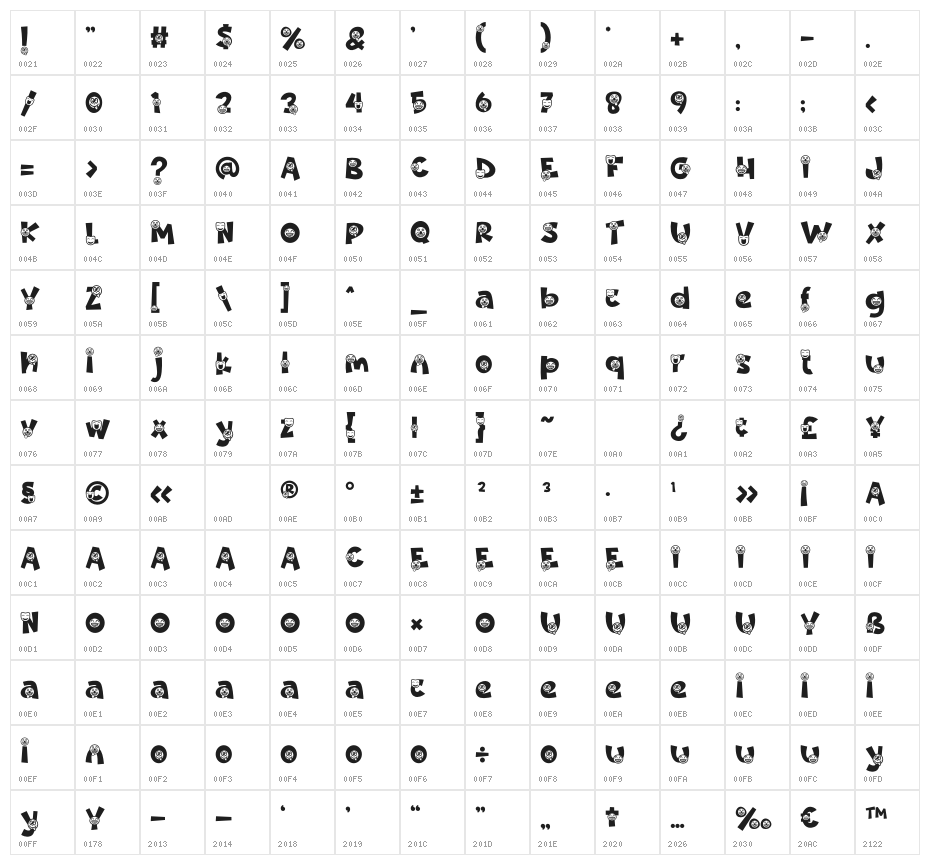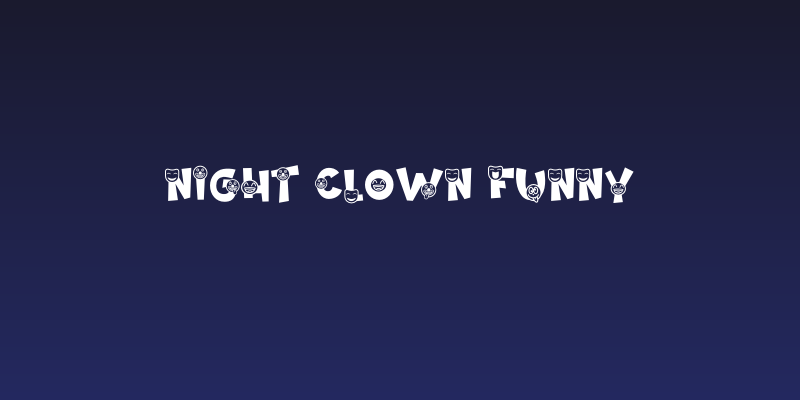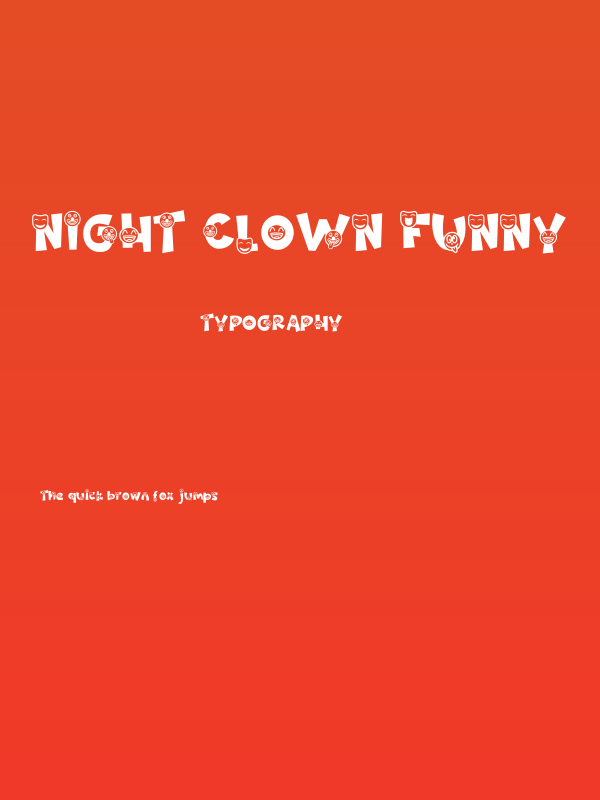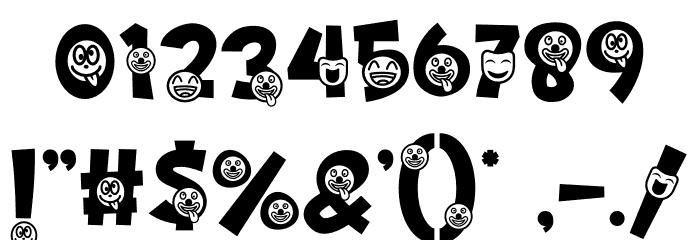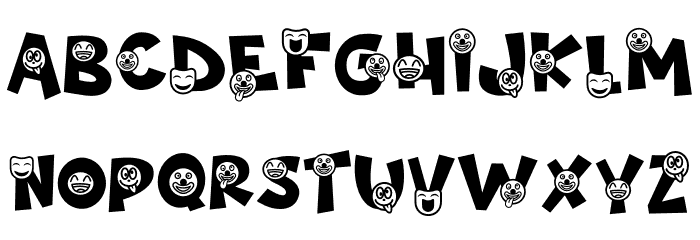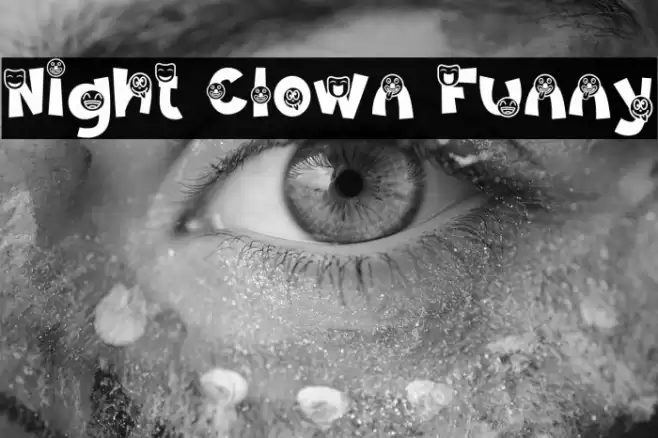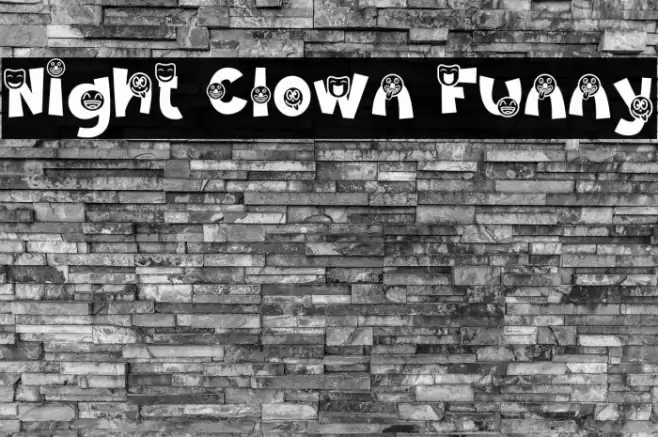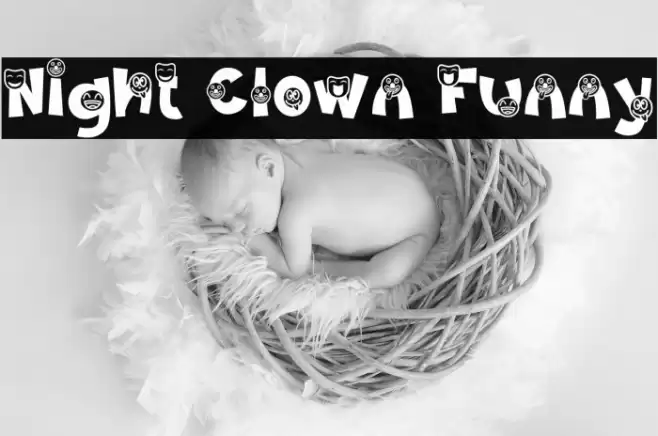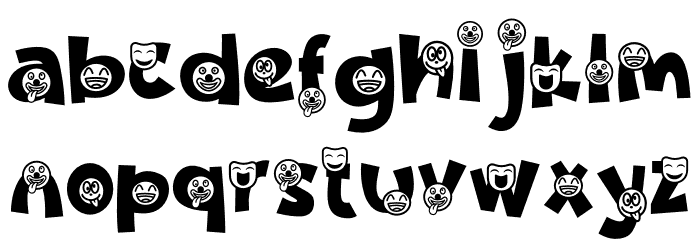
Night Clown Funny Font
Night Clown Funny Description
This playful and whimsical font features bold, irregularly shaped letters that incorporate various clown faces within each character. The design is highly decorative, with each letter and number adorned with expressive, cartoonish clown faces that add a humorous and lively touch. The font is characterized by its bold weight and slightly condensed width, creating a compact and eye-catching appearance. The character spacing is tight, enhancing the playful nature of the design. The font's high contrast between the thick strokes and the detailed clown faces makes it stand out, ideal for projects that require a fun and engaging visual element.
| Use Case | Headlines, Posters, Invitations |
| Proposed Projects | Ideal for children's party invitations, playful posters, circus-themed events, or any project needing a humorous and lively touch. |